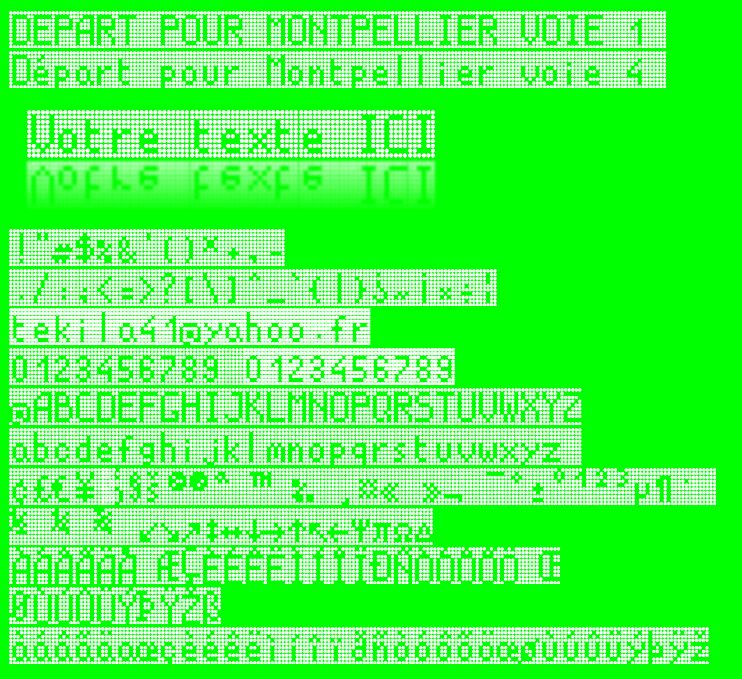
Led Panel Station Off
Led Panel Station Off font is a display typeface designed by Pierre.
Font inspired by old station and airport billboards.
Available in ON version, and in OFF version.
Ideal Wordart, poster ...